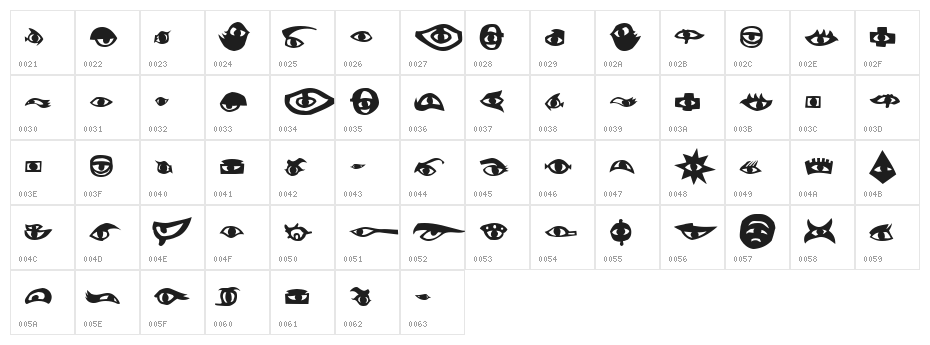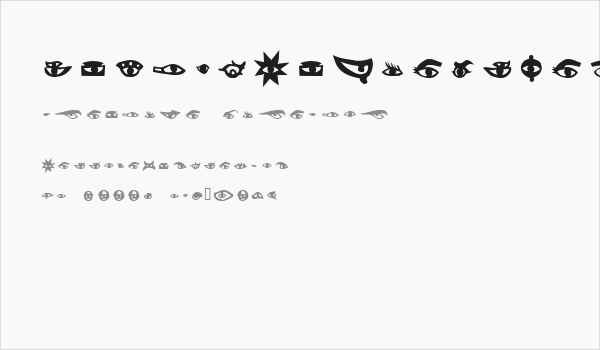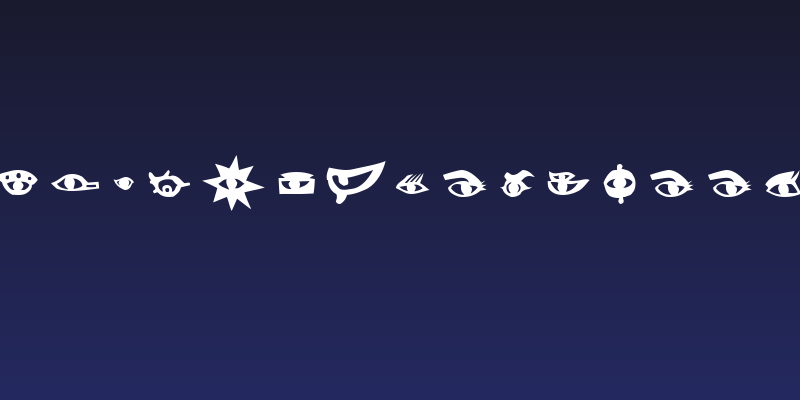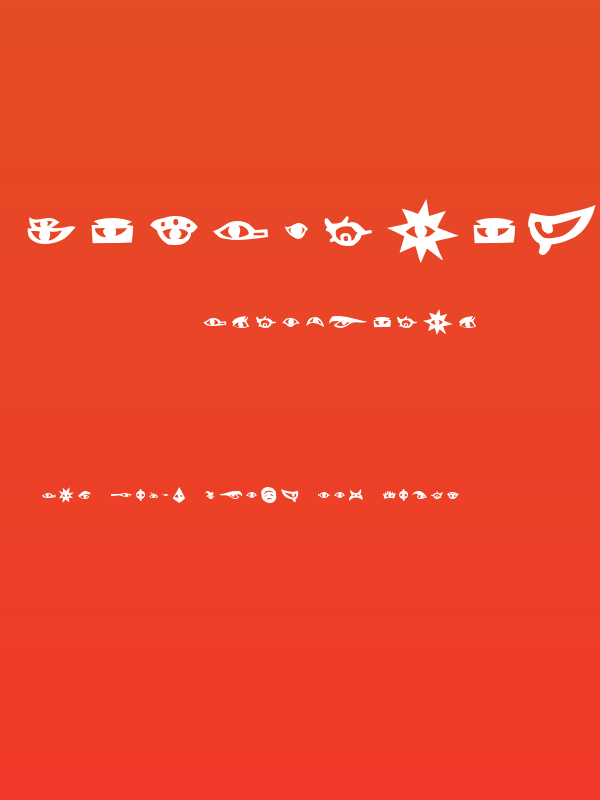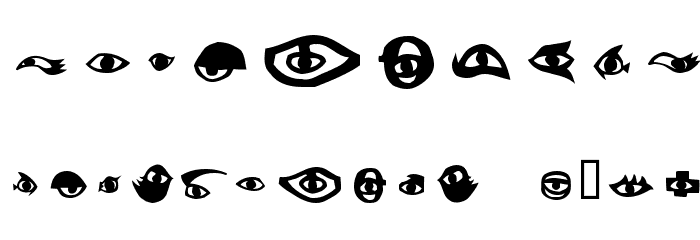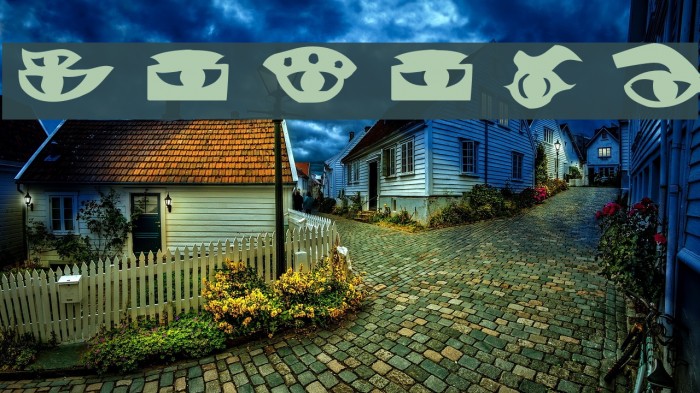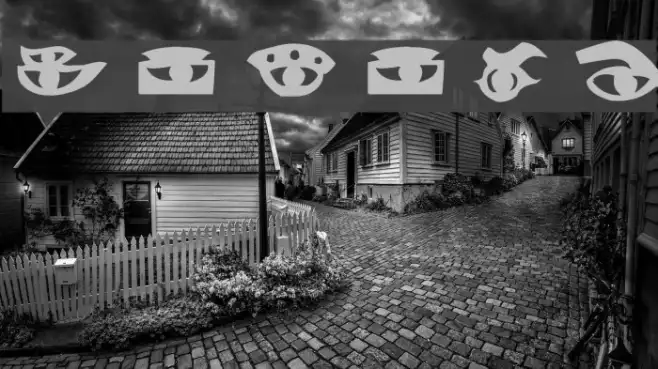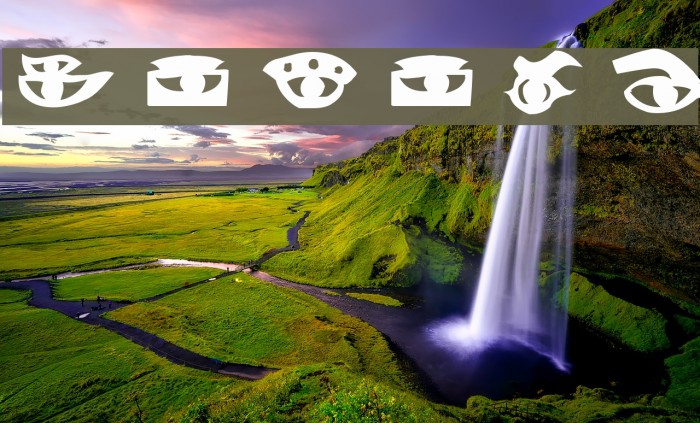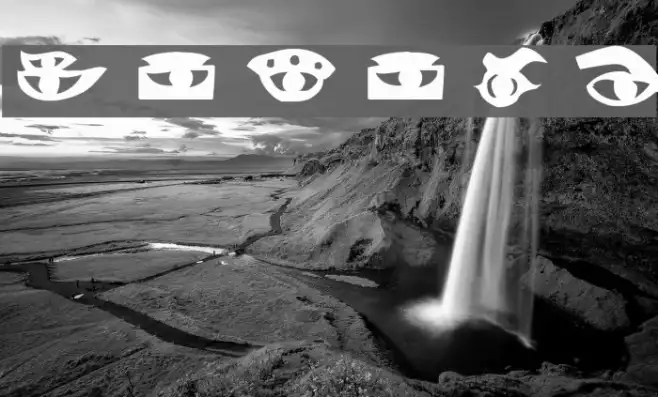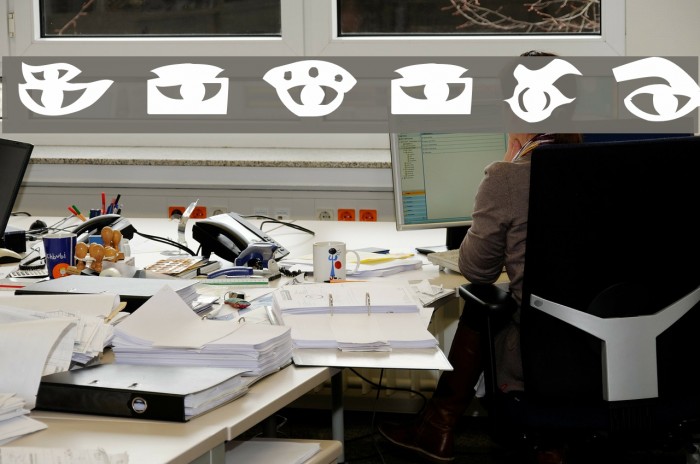
LaStéphanieBlueEyes Font
LaStéphanieBlueEyes Description
A highly decorative and playful font composed entirely of stylized eye illustrations, each character featuring a unique artistic interpretation of an eye or facial expression, with bold, solid black shapes and varying levels of abstraction.
| Overall Style | Decorative, Playful, Artistic |
| Use Case | Logos, Posters, Headlines, Themed Events |
| Proposed Projects | Children’s books, posters, album covers, Halloween or mystery-themed graphics, branding for creative industries. |